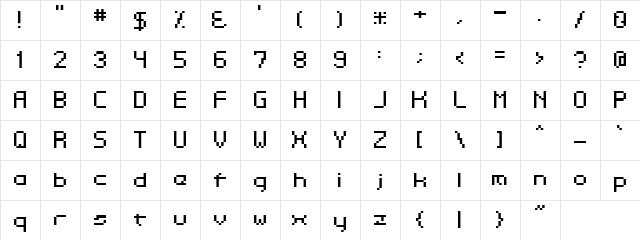
Dotspitch Regular
Design Context for Dotspitch Typeface
Dotspitch celebrates the constraints of early digital type, turning pixel geometry into a distinctive and immediately recognisable style.
Well-suited to indie game interfaces, retro computing aesthetics, and pixel art-adjacent design work.
Pro Tip: Use Dotspitch at sizes that align with its pixel grid for the sharpest rendering — scaling to non-integer multiples can introduce unwanted blur.